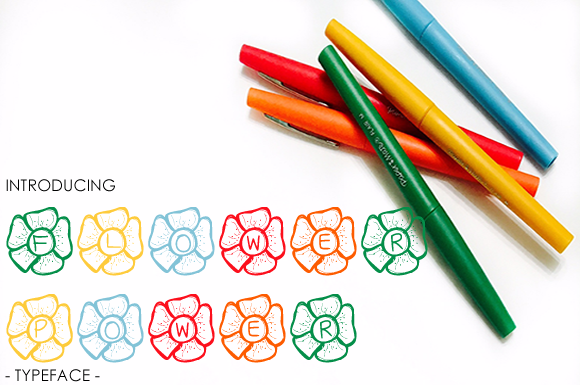
Introducing Flower Power Font: The Ultimate Decorative Font for Feminine Designs
Are you a designer or crafter looking for a font that exudes femininity and playfulness? Look no further than the Flower Power Font! This gorgeous and girly decorative font is perfect for use in summer or feminine designs, adding a touch of elegance and whimsy to any creative project.
What is Flower Power Font?
Flower Power Font is a unique and eye-catching decorative font that features intricate, embellished, and sketchy-looking flowers adorning each character. The font is designed to be used in a variety of creative projects, from bold and statement-making designs to more subtle and elegant monograms.
Key Features of Flower Power Font
- Gorgeous and Girly Design: Each character in the Flower Power Font is adorned with a beautiful, hand-drawn flower, giving the font a distinctly feminine and playful feel.
- Embellished and Sketchy Look: The flowers and characters in the font have a delicate, sketchy look that adds to the overall charm and elegance of the design.
- Perfect for Summer and Feminine Designs: The Flower Power Font is ideal for use in summer-themed designs, such as wedding invitations, party decorations, and social media graphics.
- Versatile and Flexible: The font can be used in a wide range of creative projects, from bold and colorful designs to more subtle and elegant monograms.
How to Use Flower Power Font
The Flower Power Font can be used in a variety of creative projects, including:
- Wedding Invitations and Stationery: Add a touch of elegance and whimsy to your wedding invitations, thank-you cards, and other stationery with the Flower Power Font.
- Social Media Graphics: Use the font to create eye-catching social media graphics, such as Instagram posts and Facebook covers, that showcase your brand’s personality and style.
- Party Decorations and Invitations: Create beautiful and festive party decorations and invitations with the Flower Power Font, perfect for baby showers, bridal showers, and other celebrations.
- Branding and Packaging: Use the font to add a touch of femininity and playfulness to your brand’s packaging and marketing materials.
Tips and Tricks for Using Flower Power Font
Here are a few tips and tricks to keep in mind when using the Flower Power Font:
- Experiment with Different Colors: The Flower Power Font looks great in a variety of colors, so don’t be afraid to experiment and find the perfect hue for your design.
- Mix and Match Characters: Combine different characters from the font to create unique and eye-catching monograms and designs.
- Use it as a Accent Font: Use the Flower Power Font as an accent font to add a touch of elegance and whimsy to your designs, or as a primary font for a bold and statement-making look.
The Flower Power Font is a gorgeous and versatile decorative font that is perfect for designers and crafters looking to add a touch of femininity and playfulness to their creative projects. With its intricate, embellished, and sketchy-looking flowers, this font is sure to make your designs stand out. So why wait? Download the Flower Power Font today and start creating beautiful and eye-catching designs!